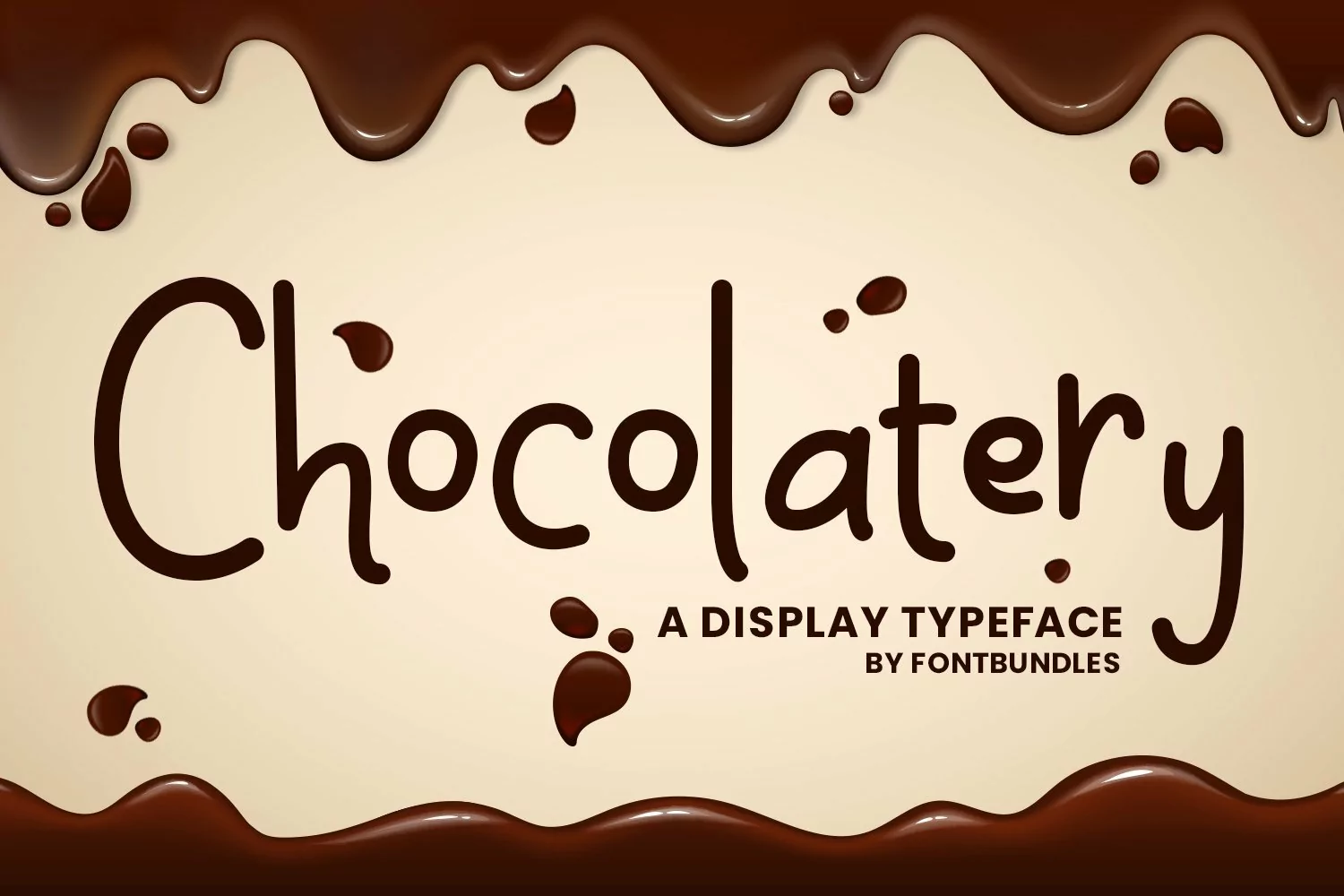
Web Font Chocolatery
Chocolatery is a display typeface. perfect for quotes, logo, badges, packaging, merchandise, header, tittle, branding and many more.